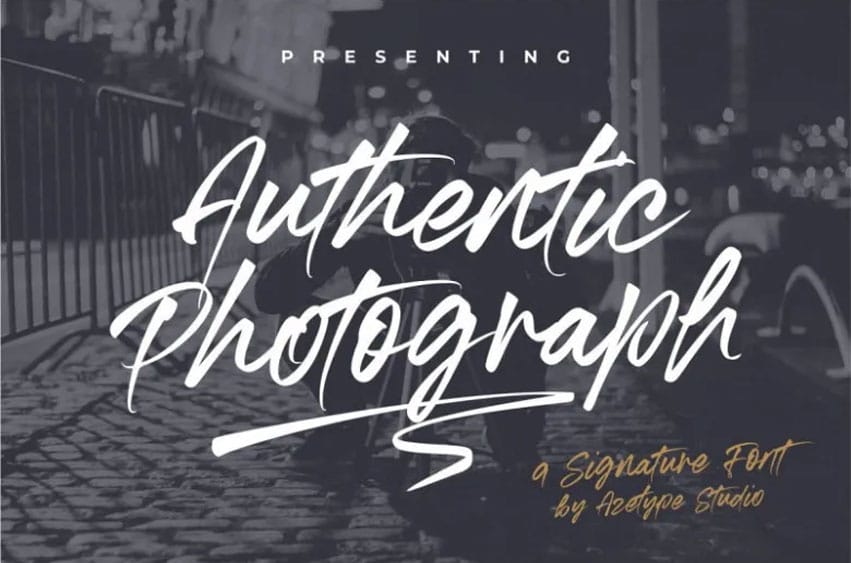
Authentic Photograph Font Photograph Font, a font that captures the spirit of style to the letter. Each stroke in this font has been meticulously designed to mimic the look of handwriting ensuring a blend of glyphs in every use.
Our goal, in creating this font was to capture a sense of fluidity that imparts a feel when utilized.
Authentic Photograph provides a balance, for various design projects such as logos & branding social media content, ads, product designs, quotes, watermarks, photography, poster layouts, magazines, stationery items or as a chic text overlay on any background image.